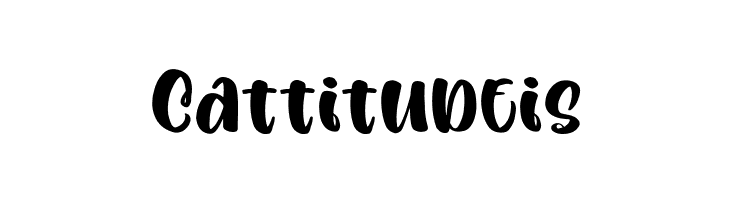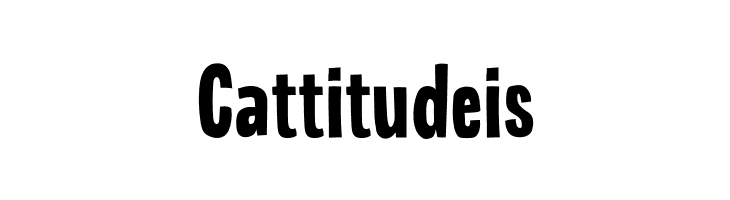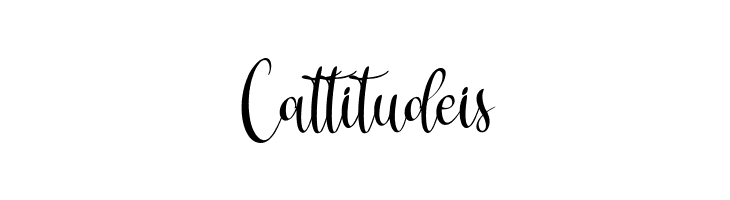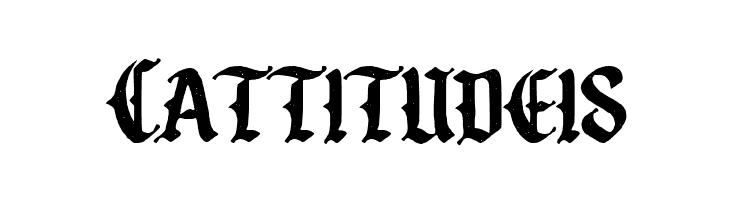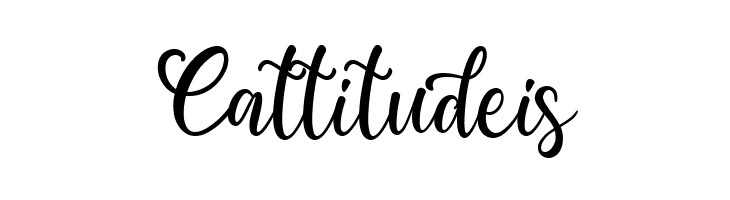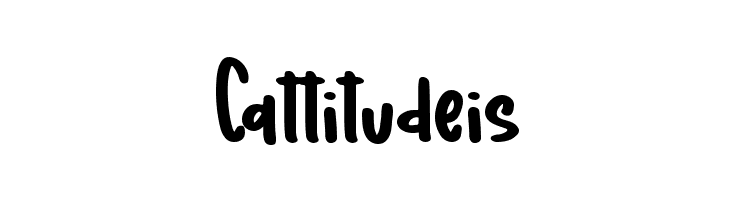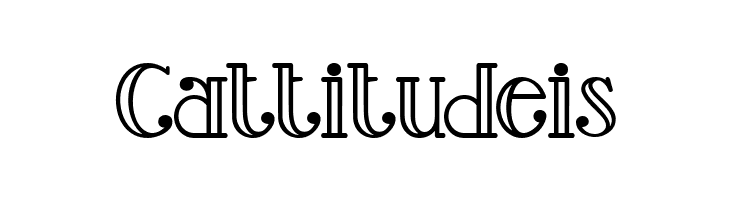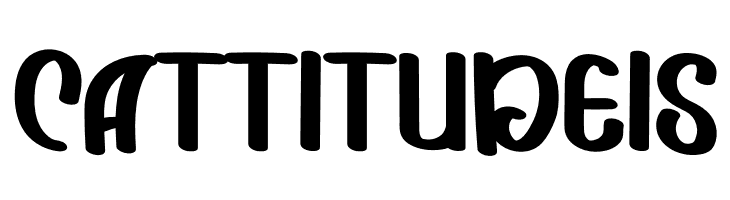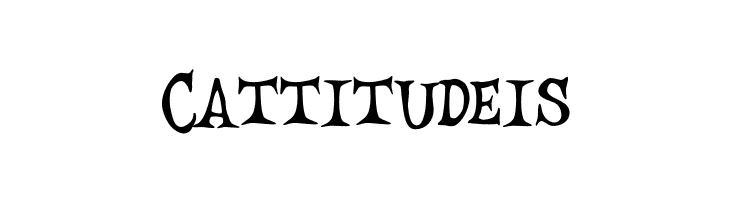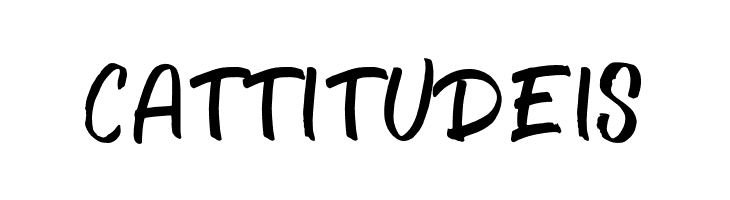
A spooky, playful font with jagged, irregular characters perfect for Halloween themes.
A spooky, whimsical font with jagged edges and playful curves, perfect for Halloween themes.
A bold, decorative font with quirky, spiral-adorned characters, ideal for spooky themes.
A bold, jagged font with an eerie, playful style.
A bold, playful script font with dynamic curves and high contrast.
A bold, playful font with a hand-drawn, slightly condensed style.
A bold, brush-style font with dynamic and expressive strokes.
A bold, brush-style font with an energetic and artistic feel.
A dynamic brush outline font with a casual, artistic flair.
A playful, brush-style outline font with a dynamic and artistic flair.
A dynamic, brush-style handwritten font with expressive strokes.
A lively, flowing script font with elegant, cursive letterforms and a handwritten feel.
An elegant, flowing script font with a sophisticated, handwritten style.
An elegant, flowing script font with a natural handwriting style.
A bold, handwritten font with dynamic brush strokes and expressive letterforms.
An elegant, cursive handwritten font with smooth, flowing strokes.
A decorative serif font with elegant, rounded terminals and a classic-modern blend.
A bold, playful script font with a handwritten feel.
A bold, playful handwritten font with thick strokes and rounded edges.
An elegant, flowing script font with ornate, cursive letterforms.
An elegant, cursive font with fluid strokes and a sophisticated style.
Casual handwritten script font.
A bold, blackletter-style font with intricate detailing and strong vertical strokes.
An elegant, flowing script font with delicate, thin strokes and intricate swashes.
A graceful, flowing script font with high contrast and elegant curves.
A casual, handwritten font with a flowing, cursive style.
A bold, geometric font with angular shapes and strong visual impact.
A bold, brush-style font with a dynamic and hand-drawn appearance.
A lively and flowing script font with expressive curves and elegant loops.
A bold, geometric font with angular elements and strong visual impact.
A bold, decorative serif font with a vintage flair.
A playful, rounded font with elongated strokes and a friendly appearance.